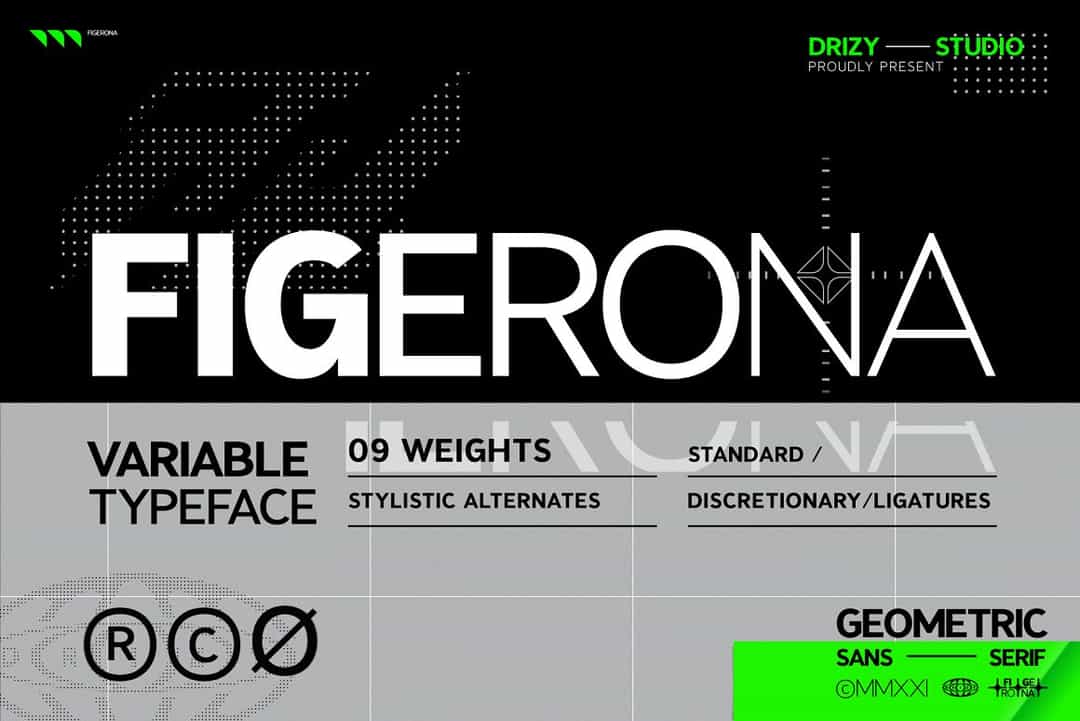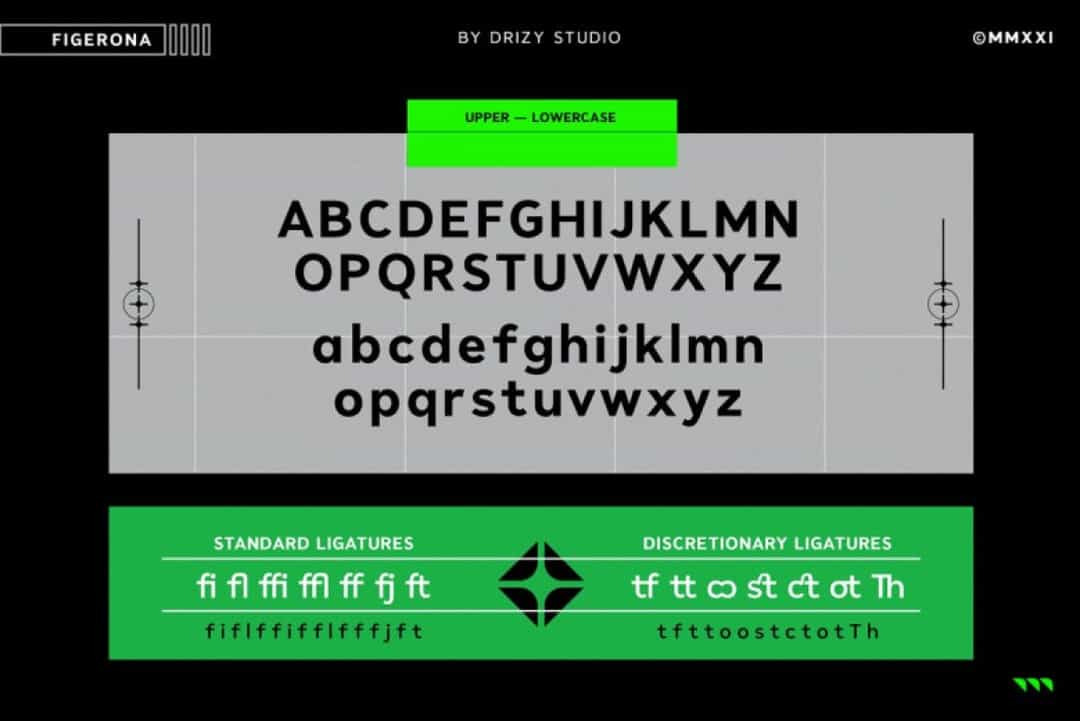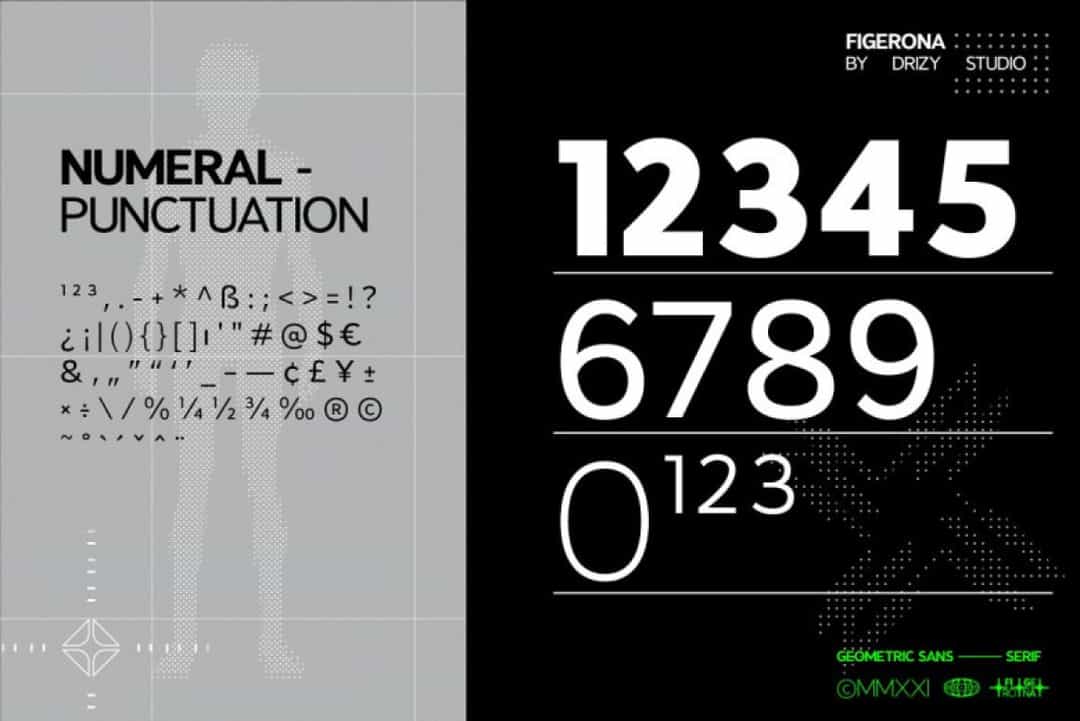
Figerona is one of the newest display sans serif font families available today, making this type of font ideal for use in modern signage displays as well as providing you with enough size options ranging from Thin to Black that allows for creative use of this type of font.